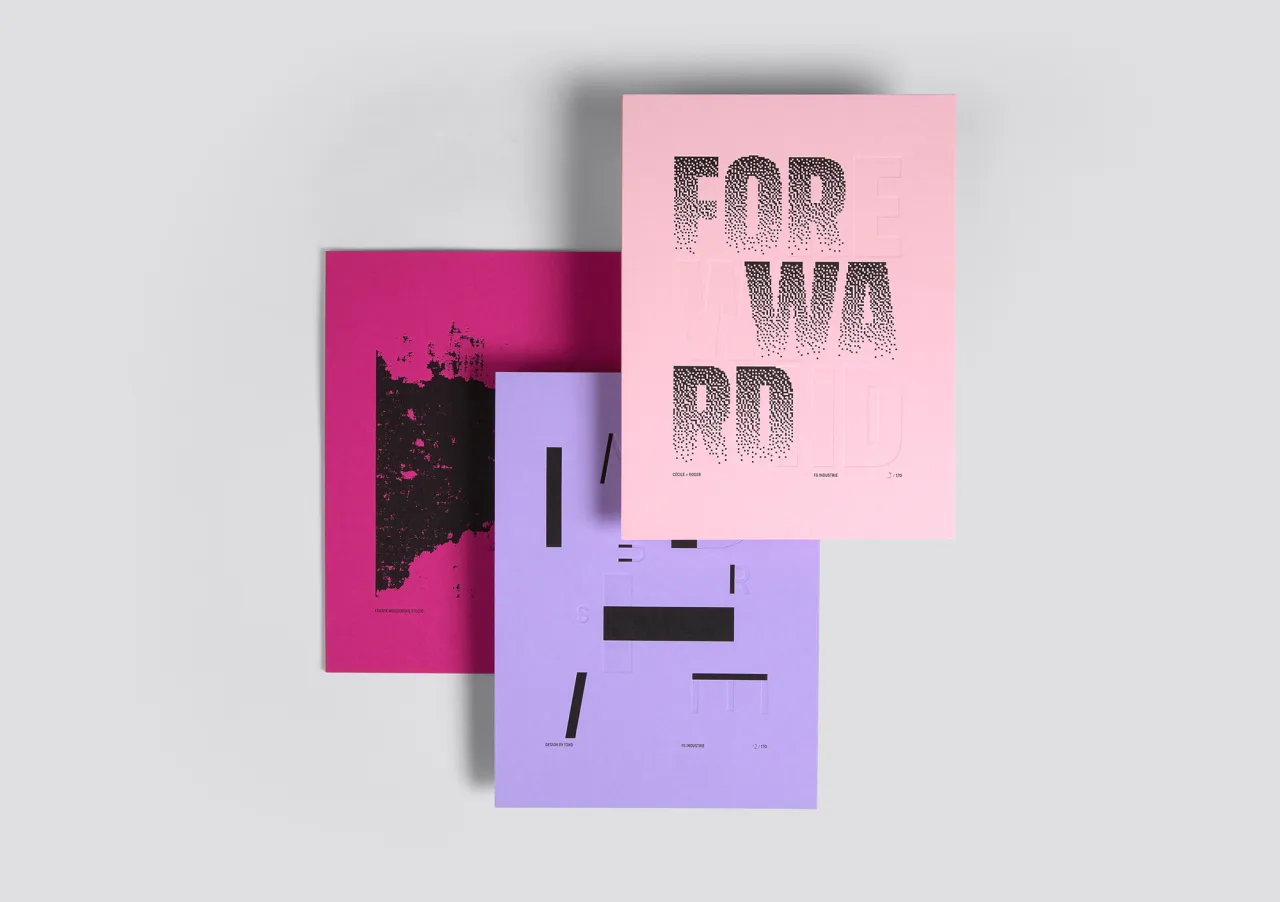
Fontsmith launches nine variable fonts with an interactive microsite
Foundry Fontsmith has launched a new collection of nine variable fonts: FS Industrie, FS Koopman, FS Ostro Display, FS Kim, FS Meridian, FS Untitled, FS Pimlico, FS Pele and FS Kitty.
Type Design Director Phil Garnham tells Creative Boom: "Never before have the systems of visual language been so adaptive and responsive. Fonts now have the capability to adapt to light, distance, sound, motion… we can hone in on a precise functionality, or create unexpected opportunities for expression or both. And the best part – a variable font's capabilities are packed into one small-sized font file."
What's also interesting is that rather than having a separate file for each style, a variable font can include an entire family of styles in one TrueType or WOFF2 file, and you can have the flexibility to choose any intermediate iteration within the font. Any axis can be defined by you such as 'width' or 'italic' or something more creative like 'shadow' or 'glow'.